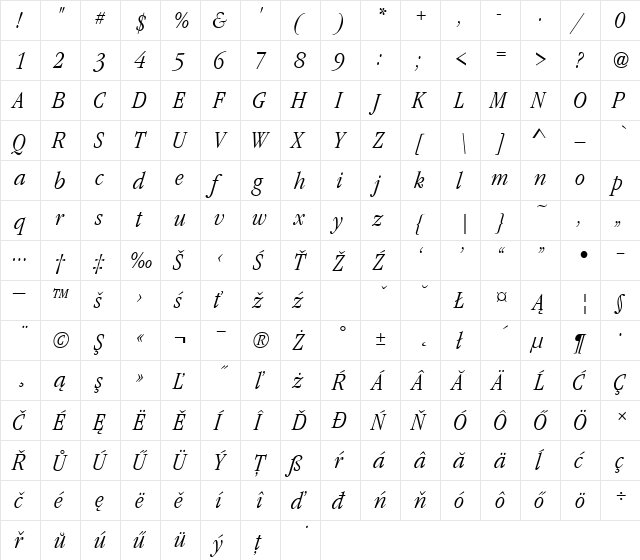
GaramItcTEELigCon Italic Italic
Design Context for GaramItcTEELigCon Italic Typeface
GaramItcTEELigCon Italic is a composed and adaptable typeface that performs quietly and consistently across a wide range of design contexts. The dynamic lean of this cut emphasises speed and emphasis in any layout.
Pro Tip: Try GaramItcTEELigCon Italic for annotation and caption copy alongside an upright companion — the contrast in angle creates a dynamic but ordered typographic system.